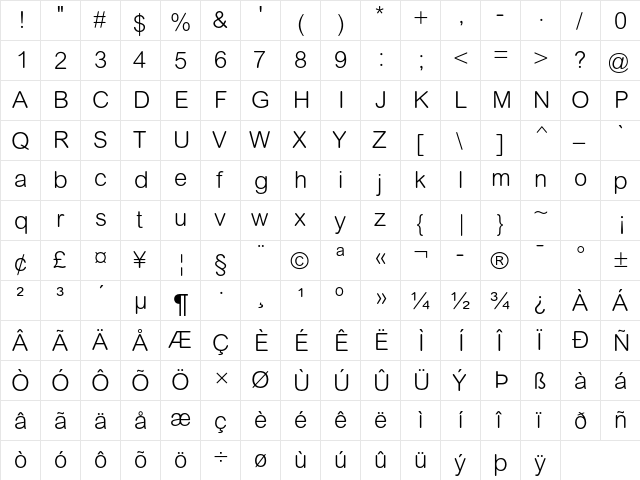
Arial Rounded MT Std Light
Design Context for Arial Rounded MT Std Typeface
Arial Rounded MT Std softens its letterforms with rounded terminals, giving it an approachable, friendly quality that works well in consumer-facing and digital contexts. Its slender proportions lend an understated elegance to any composition.
A natural fit for tech startups, health and wellness brands, children's products, and friendly consumer apps.
Font Pairing: Pairs well with a rounded or humanist sans for body copy, maintaining the friendly tone without relying on Arial Rounded MT Std to carry extended reading.
Pro Tip: Pair Arial Rounded MT Std with a geometric sans for a balanced system — the rounded softness works as a warm counterpoint to harder-edged companions.